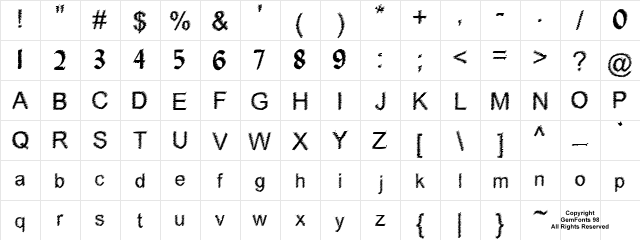
Woodbrush Regular
Design Context for Woodbrush Typeface
Woodbrush echoes the hand-painted signage and woodblock typography of the American frontier, with a warm, rugged personality.
A natural fit for craft spirits, ranch branding, rodeo events, and Americana-inspired design work.
Font Pairing: Combine Woodbrush with a simple slab or neutral sans — period-accurate companions reinforce the vintage feel without competing for attention.
Pro Tip: Use Woodbrush for short, impactful bursts of text — it shines in poster headlines and product names rather than extended copy.